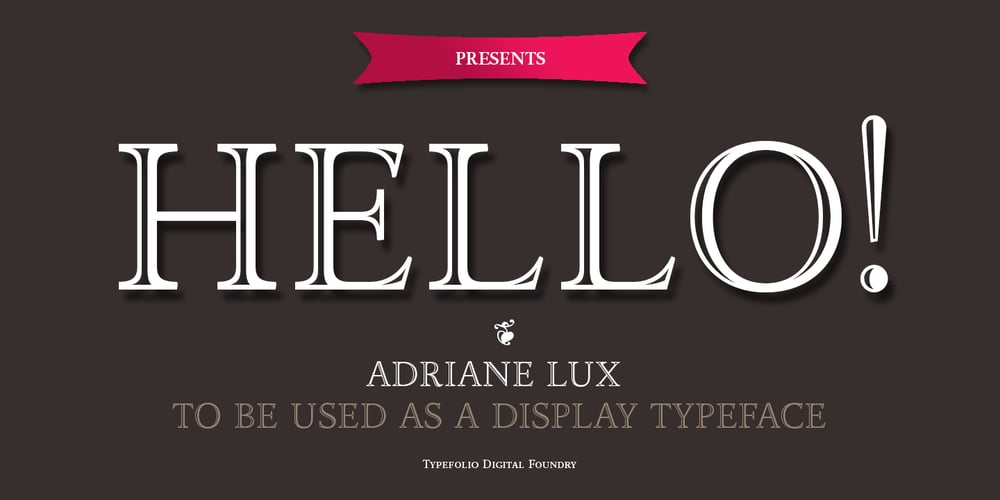
Adriane Lux
Adriane Lux font
Adriane Lux Font Family was designed by Marconi Lima and published by Typefolio. Adriane Lux contains 1 styles and family package options. Adriane Lux is the decorative, “inline” or “openface” titling companion to Marconi Lima’s acclaimed Adriane Text family. This single weight offering is modeled after the Regular weight of the primary family. While Adriane Text is intended for thoroughly classical book design, Adriane Lux enters the fold as an equally traditional display face. Have it foil-stamped on your next faux-leather book cover design or embossed on your personal calling card for a touch of well-behaved, regal formalism.